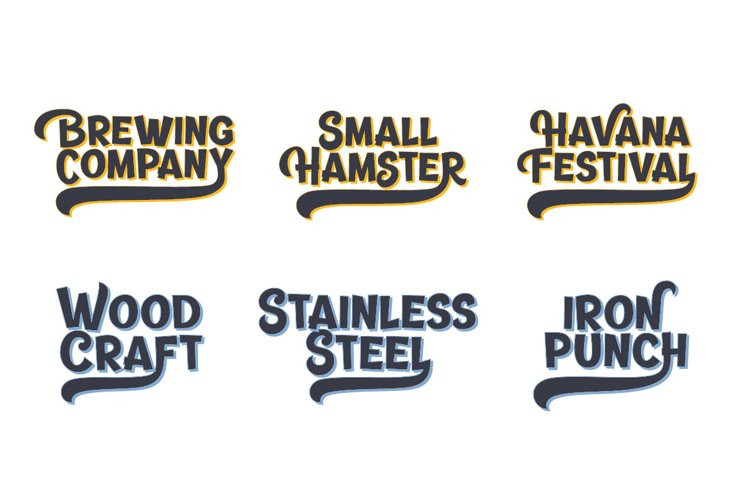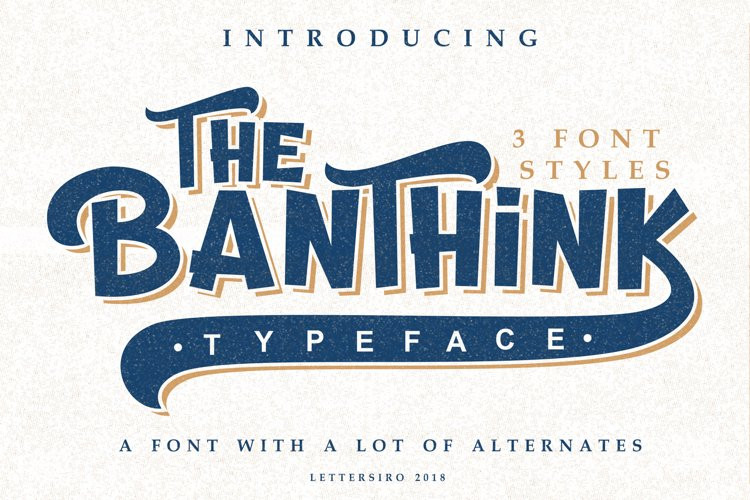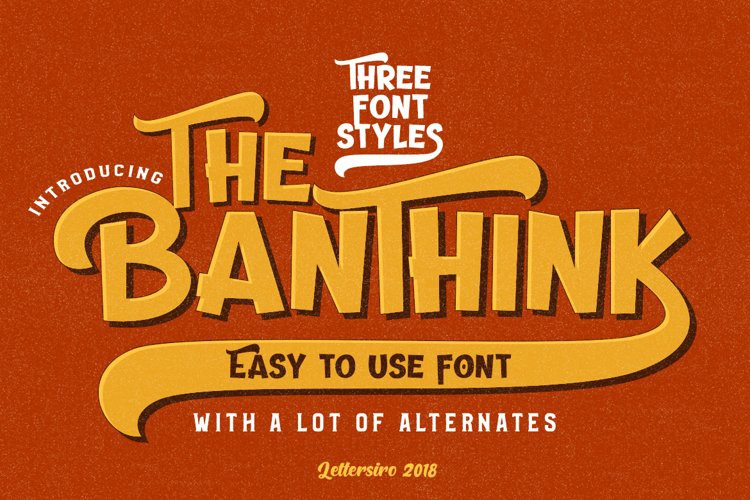
The Banthink Font
The Banthink FontWe just launch our newest product. We made a playful font, so cool and modern-vintage looks , called Banthink Font.
This font is great for logo, poster, clothing, branding, party
invitation, and many many other cool design projects. Banthink comes
with a lot of alternate character, and also come with 3 font styles.